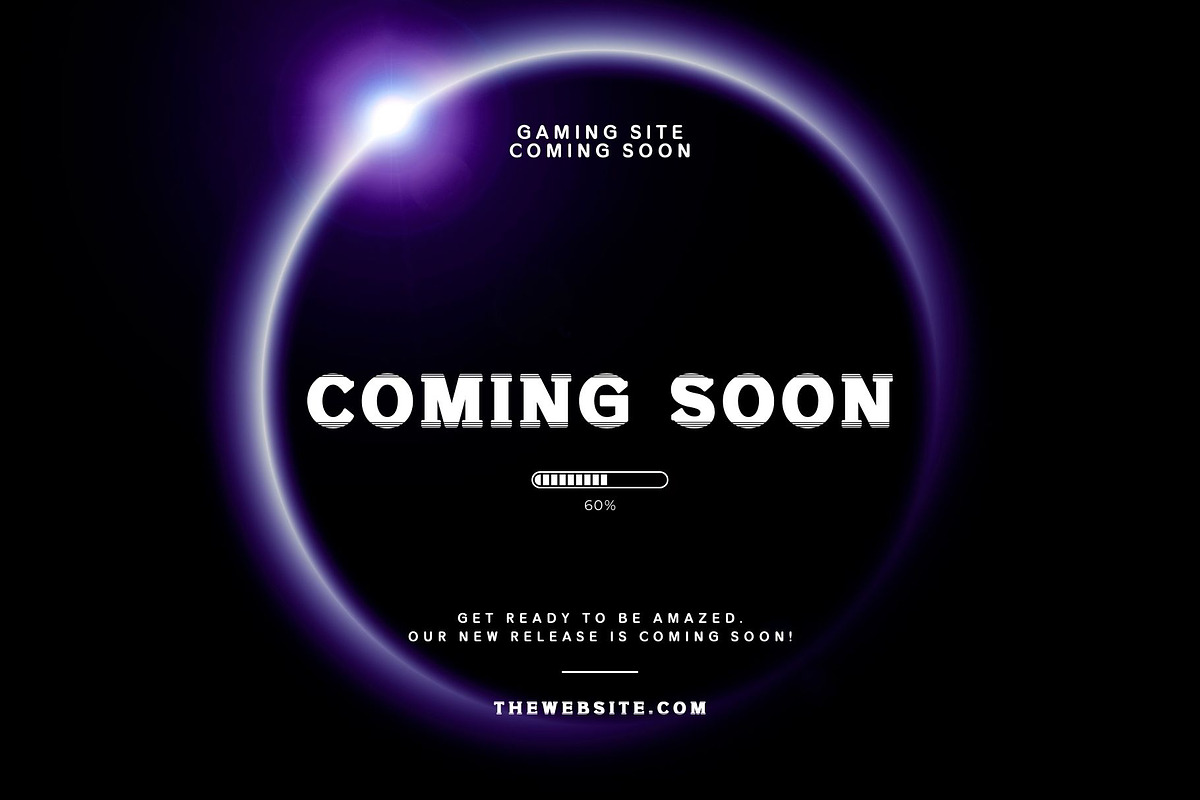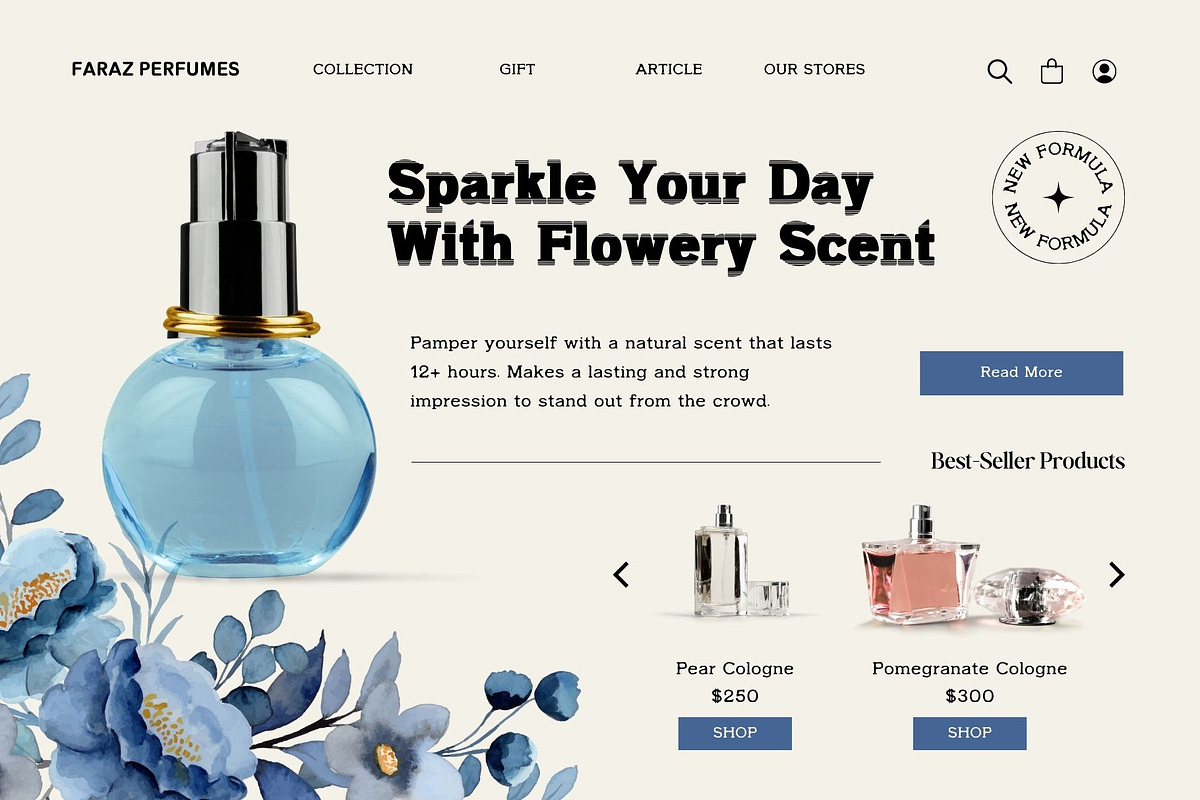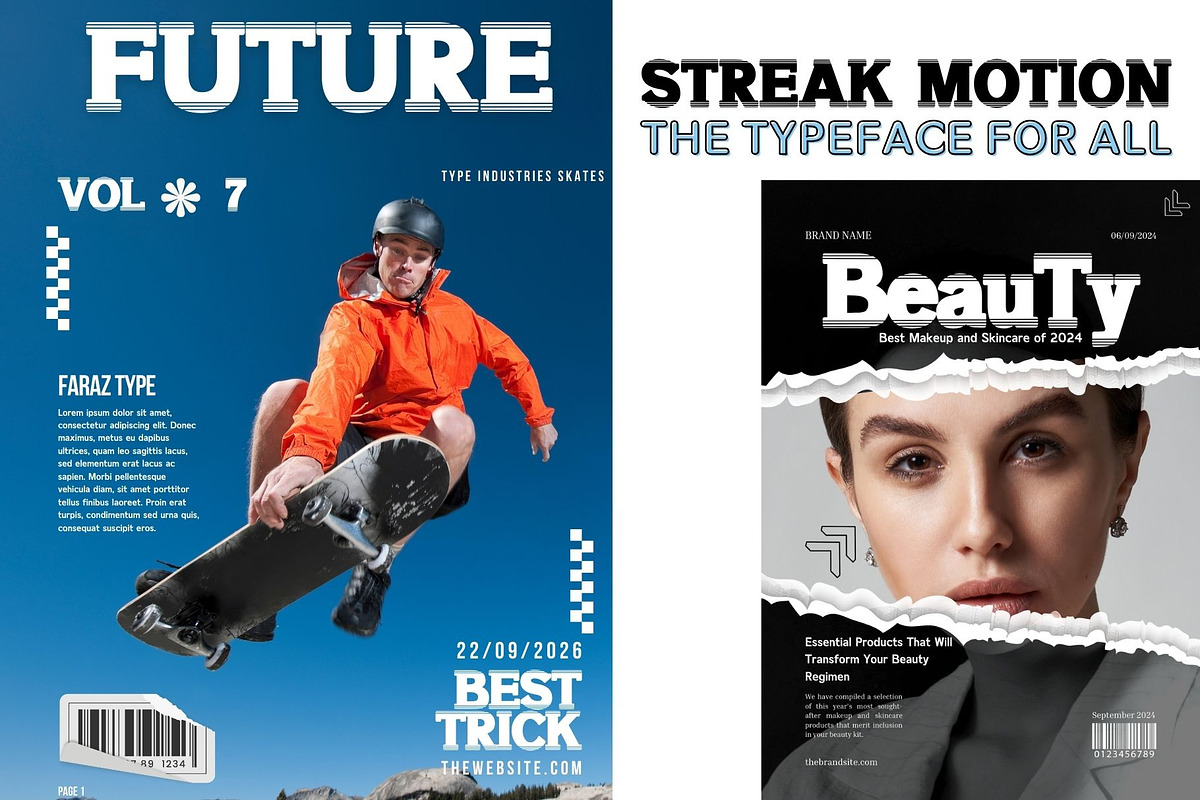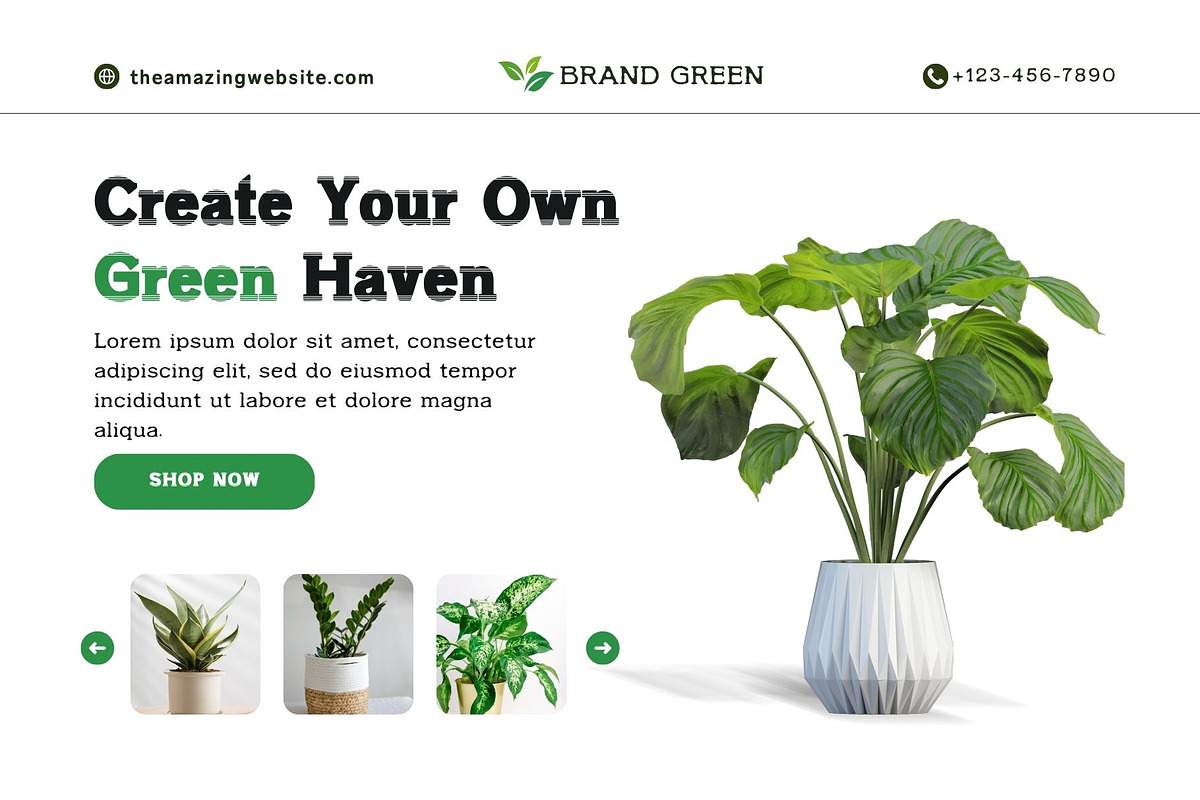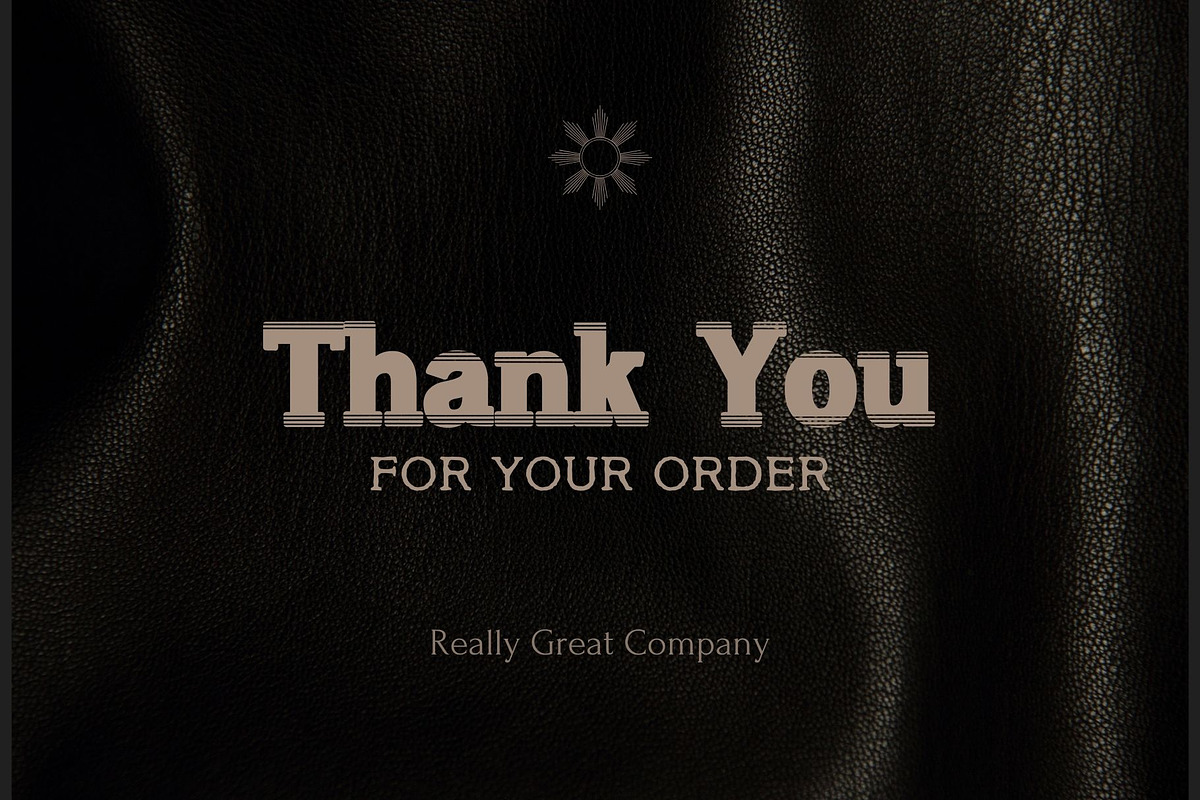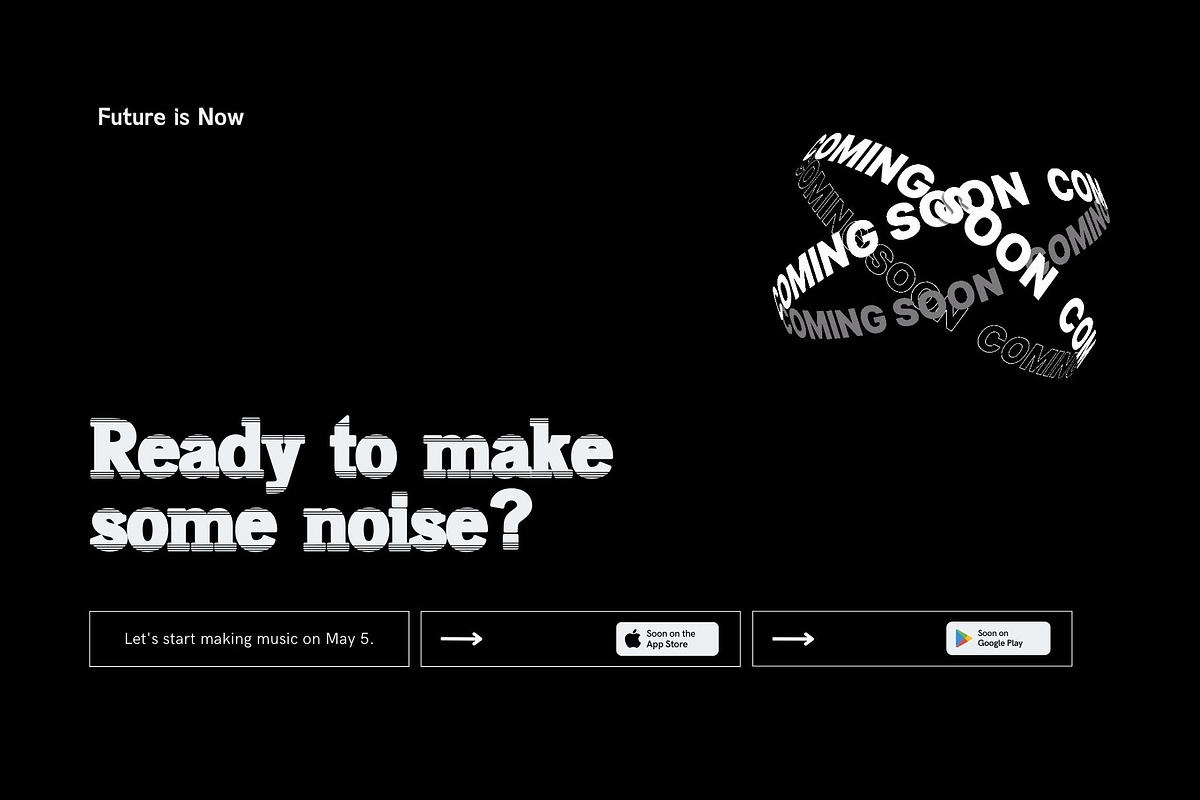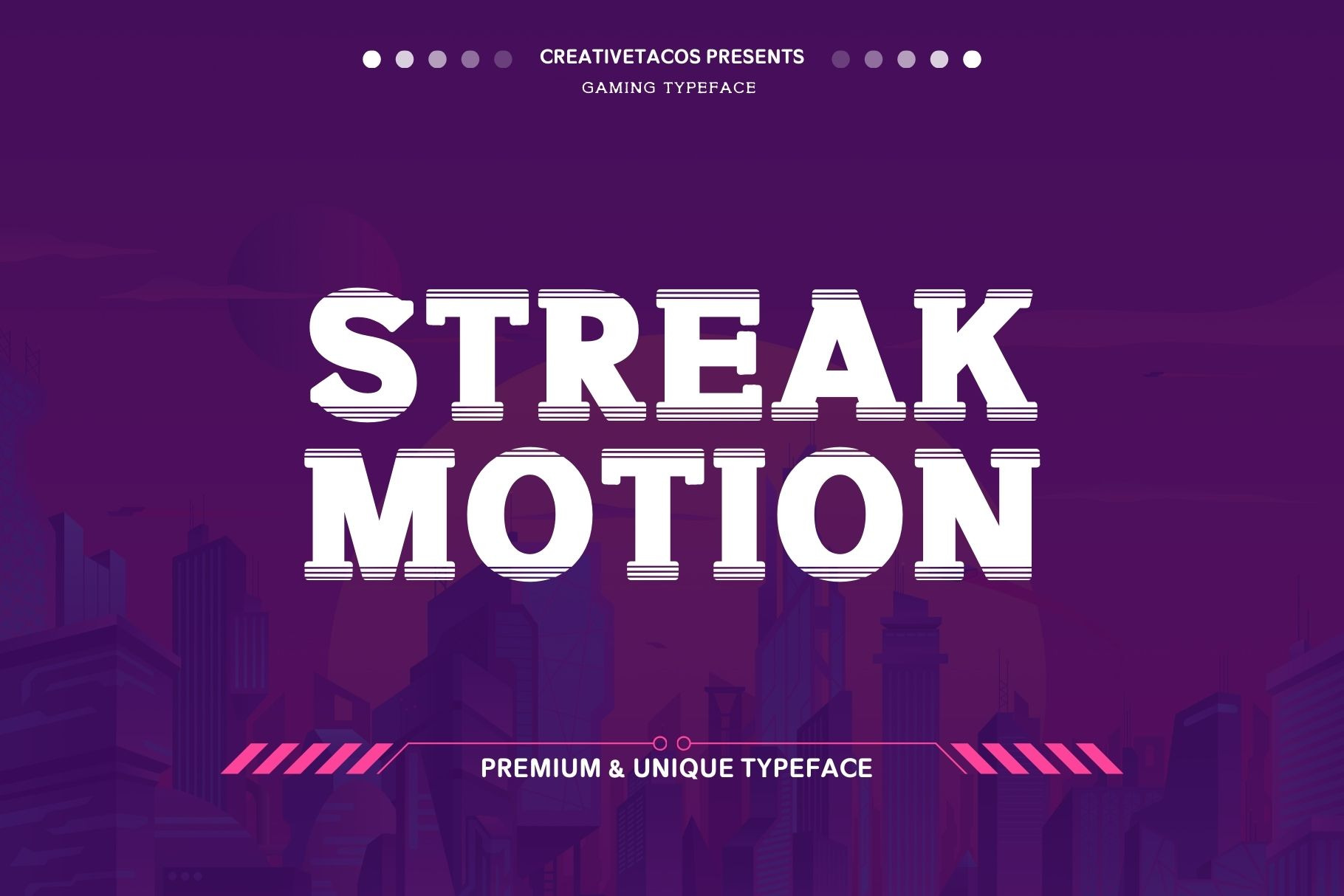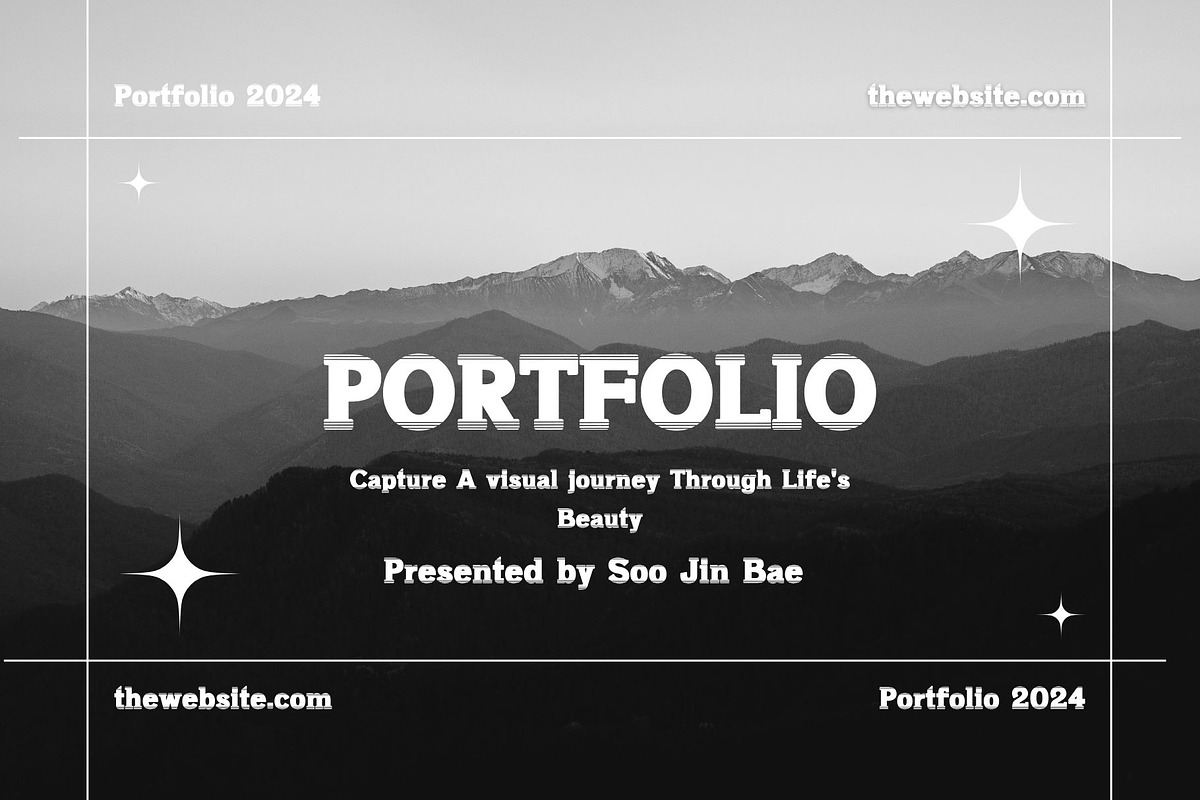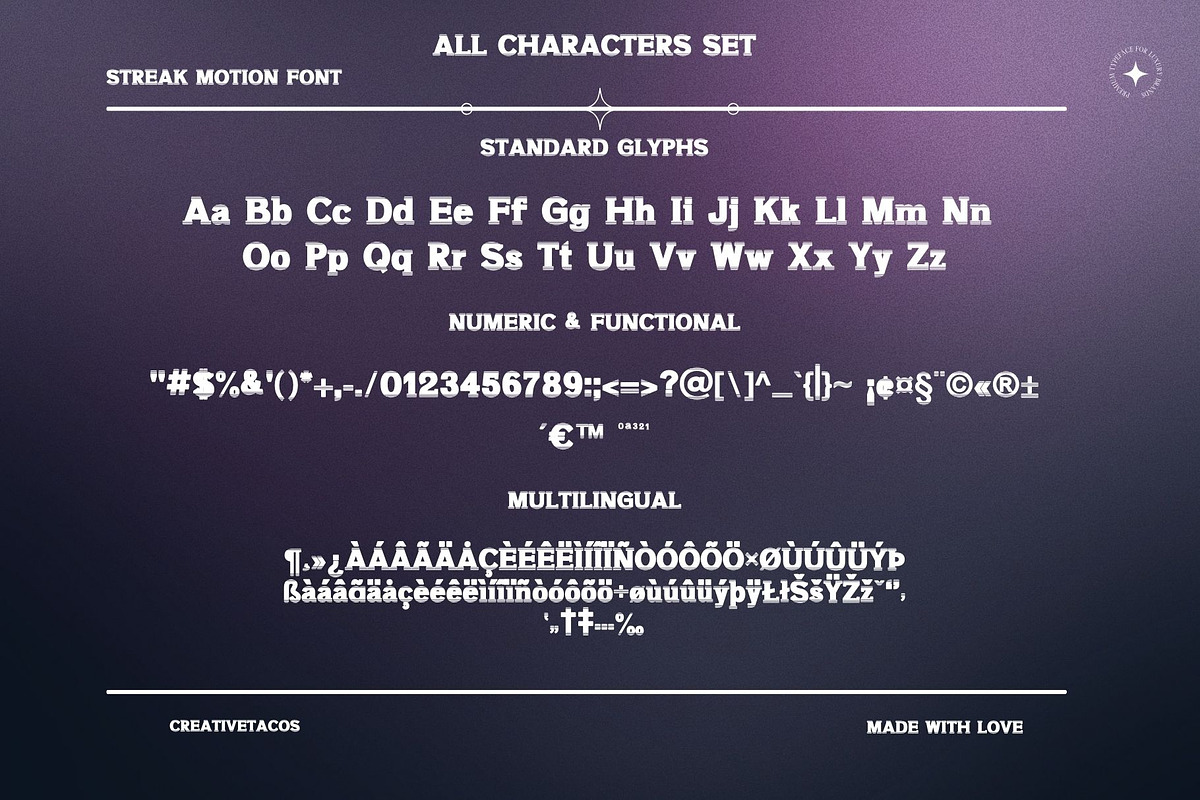
Streak Motion Font
Streak Motion Font is a dynamic, bold typeface designed to grab attention. With its bold, streaked letterforms, this font is perfect for projects that need a futuristic edge. Whether you're working on gaming titles, posters, or branding, Streak Motion Font adds a unique and energetic vibe to your design.
- Standard Uppercase & Lowercase Characters: Complete A-Z alphabet in both upper and lowercase for maximum versatility.
- Numerals & Punctuation: Full set of numbers, punctuation marks, and special symbols to meet all your text needs.
- Multilingual Support: Streak Motion supports accents and diacritics for various languages, covering Western European, Central European, and South Eastern European languages.
- High-energy gaming logos and titles
- Bold posters and impactful branding
- Magazines, headlines, and editorials
- Creative and futuristic product packaging
- Websites and apps with a modern touch
With its energetic, bold character, Streak Motion Font brings a modern, high-impact look to any project. It's the perfect choice for designs that demand attention and stand out from the crowd.